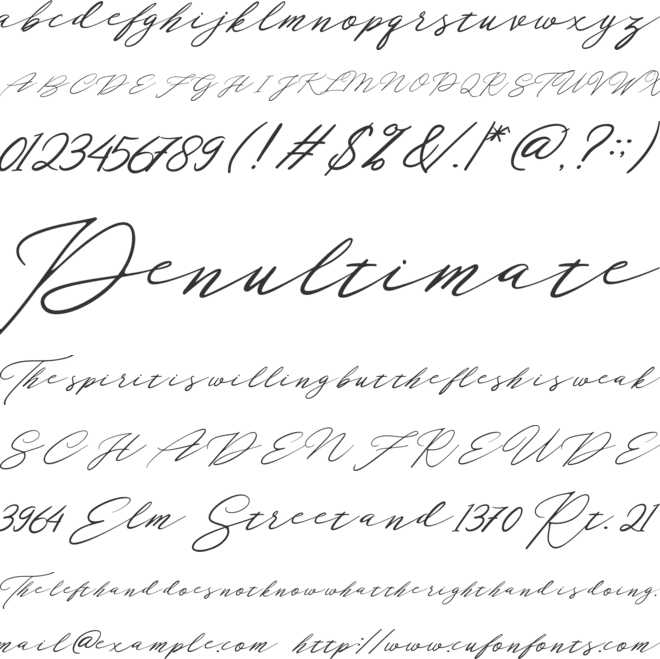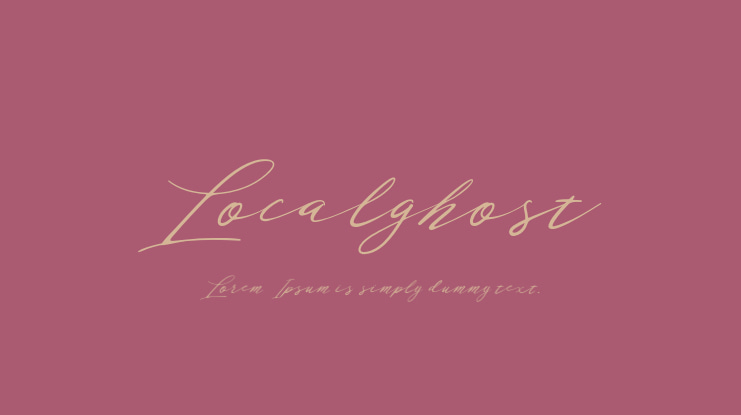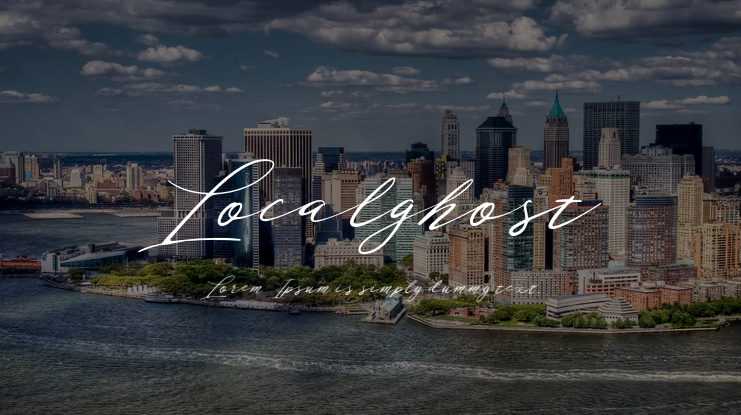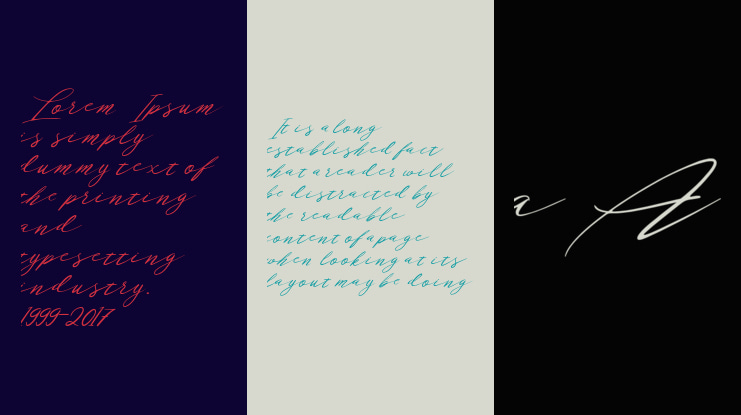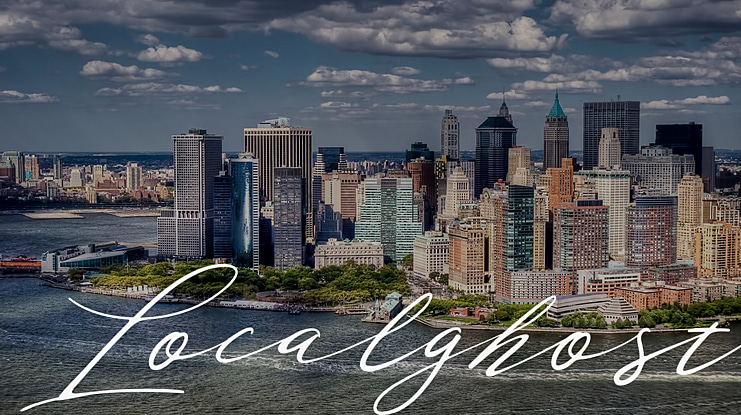
Localghost Font
Alit Suarnegara
introducing Localghost typeface , using style signature lettering script. Localghost typeface a beautiful for logotype, website header, fashion design, header magazine, header mail and any more. Product Content : Localghost typeface (OTF & TTF Format) Features : Character Set A-Z Numerals & Punctuations (OpenType Standard) Accents (Multilingual characters) Contextual Alternates